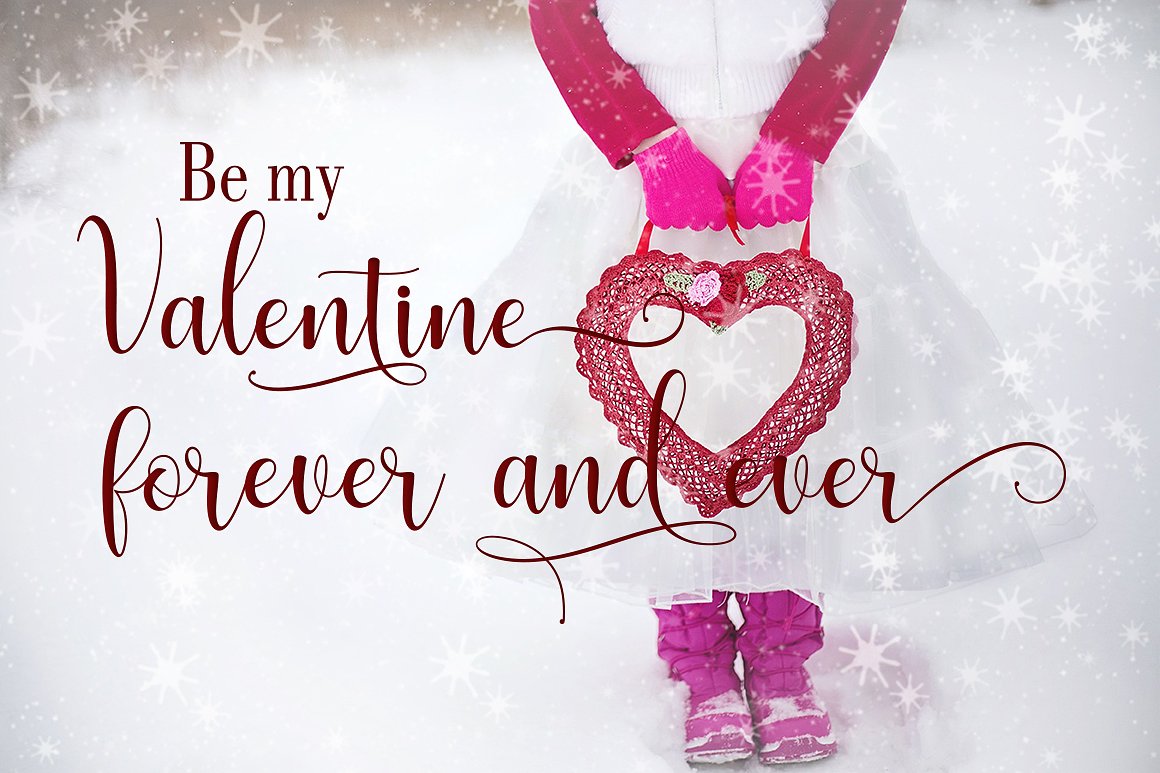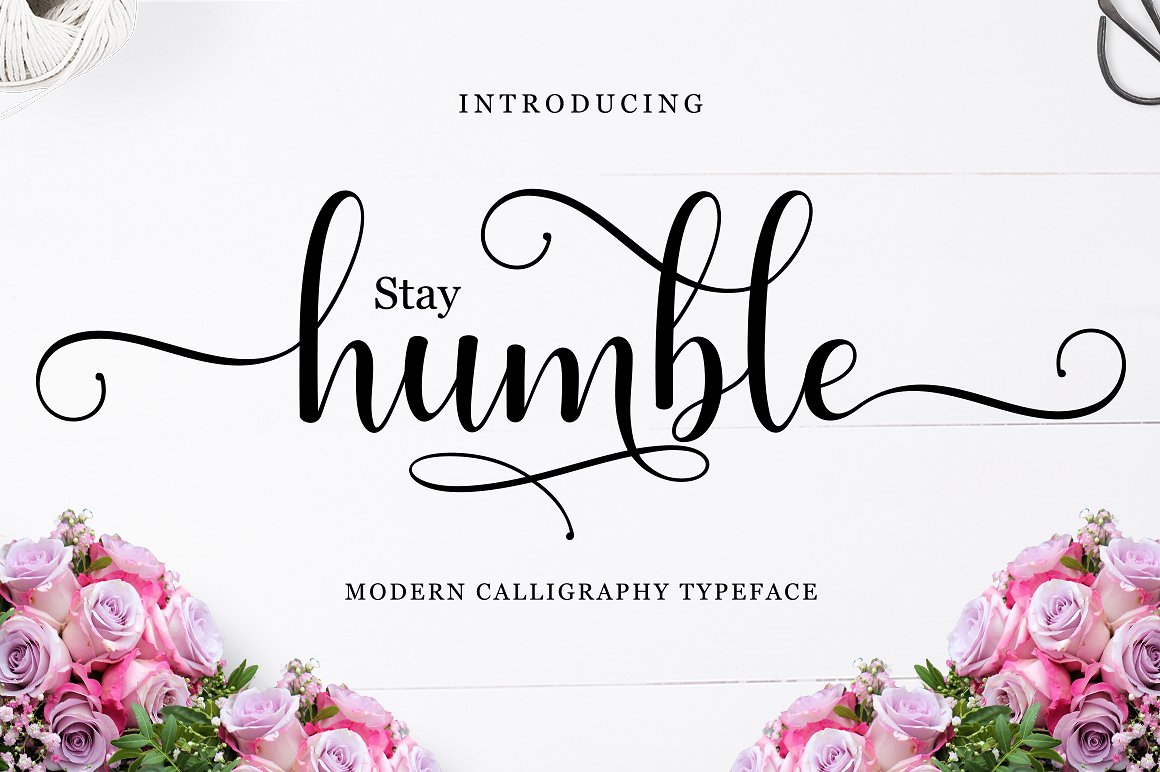
Humble Calligraphy
Humble Calligraphy Font
Humble Script a new fresh & modern script with a handmade calligraphy style, decorative characters and a dancing baseline! So beautiful on invitation like greeting cards, branding materials, business cards, quotes, posters, and more!!